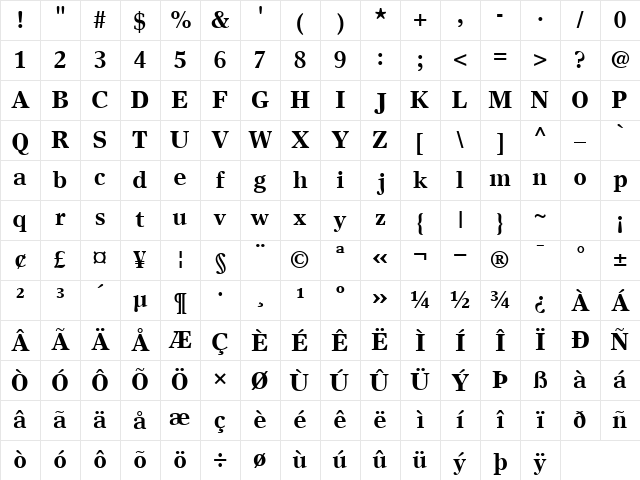
Complete GrecoEuropaSSK Bold glyph index. Displaying only characters natively supported by GrecoEuropaSSK Bold font.
GrecoEuropaSSK is a composed and adaptable typeface that performs quietly and consistently across a wide range of design contexts. Its bold stroke weight gives it real presence on the page.